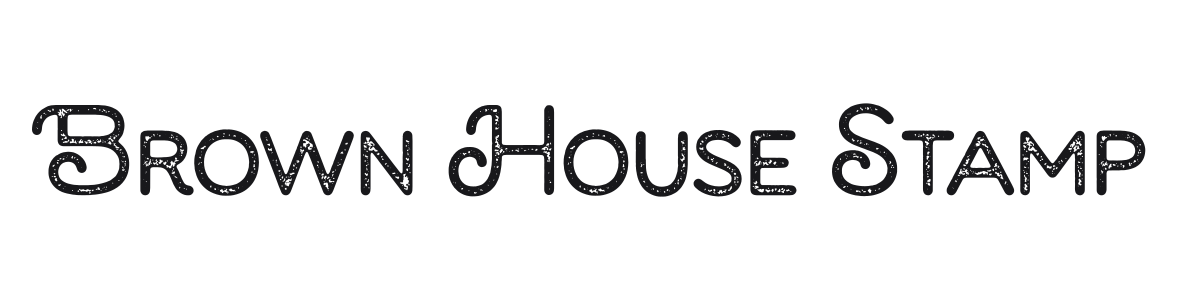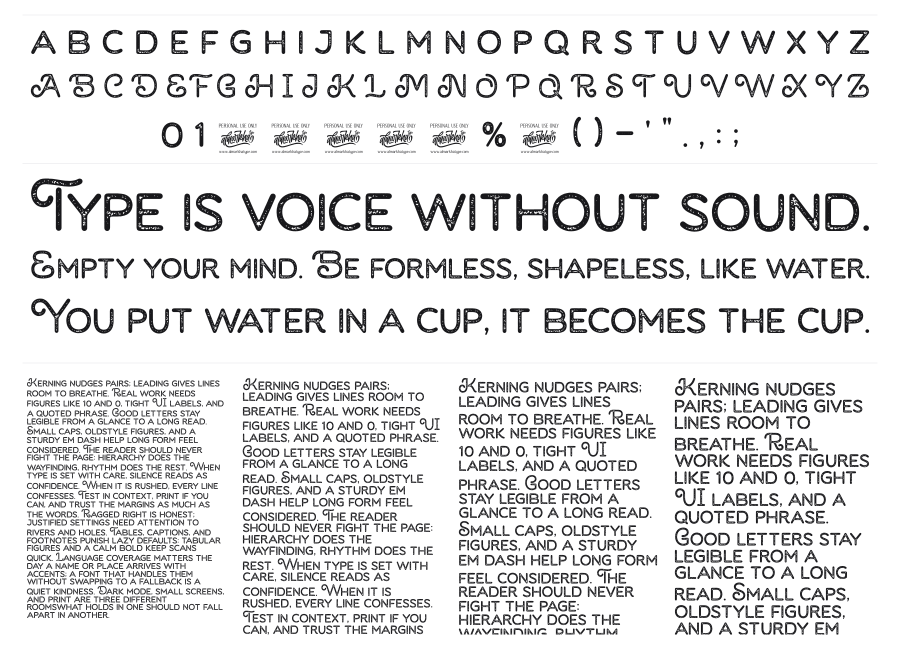
Brown House Stamp
Brown House Stamp is a rounded sans-serif treated to look like ink pressed through a worn rubber stamp. The even, granular erosion across every stroke gives it a genuinely tactile, handcrafted quality rather than a digital approximation. It suits branding, packaging, and headlines where a casual, artisan character is the point.